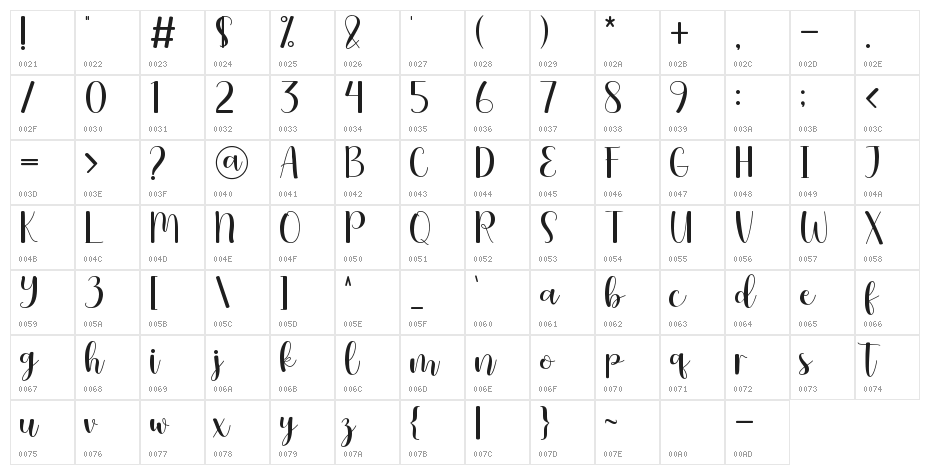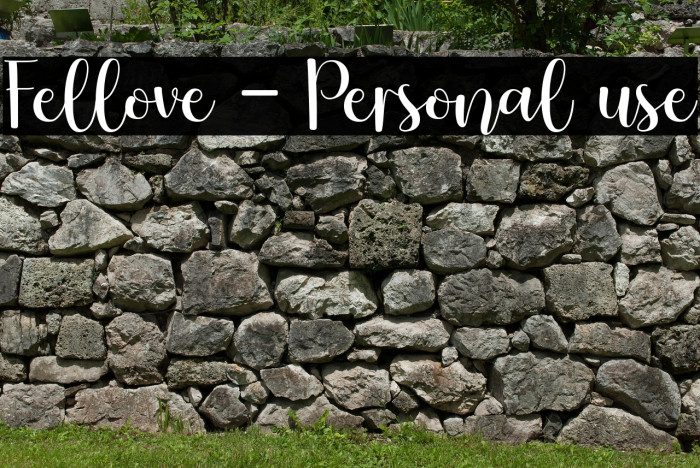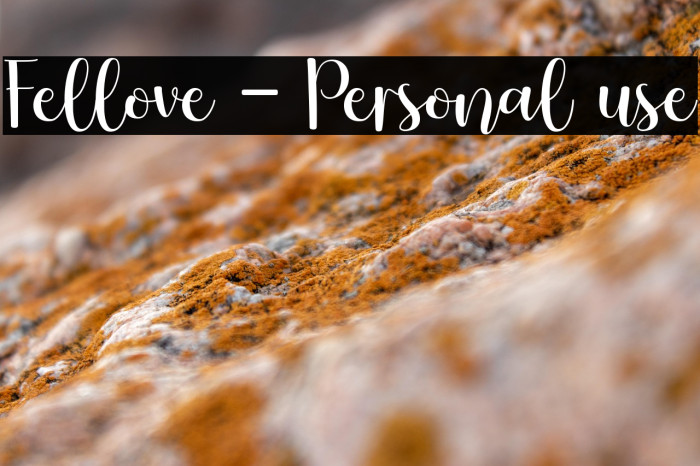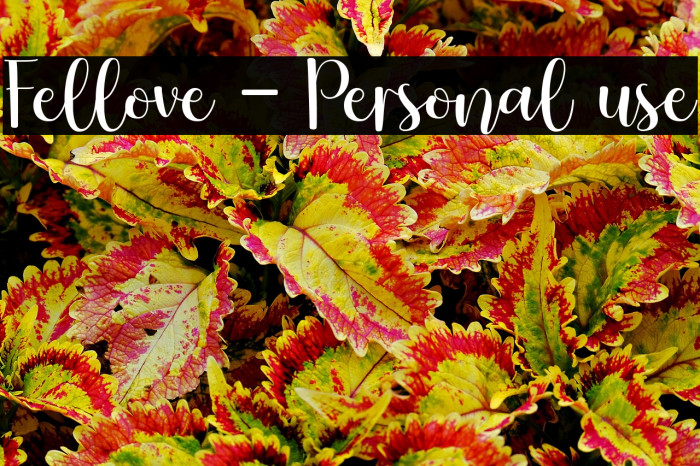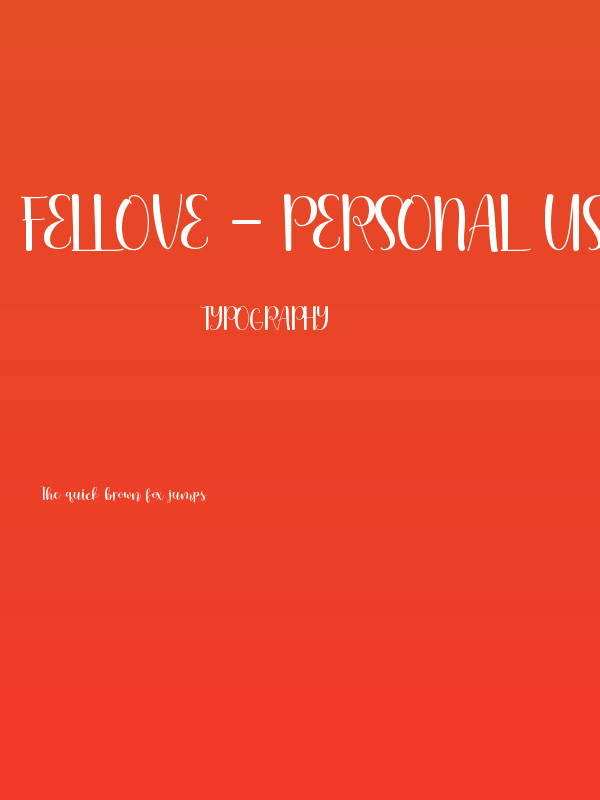
Fellove - Personal use Font
Fellove - Personal use Description
This font exudes a playful and elegant charm, characterized by its flowing, cursive script style. The uppercase letters are tall and slender, with a whimsical flair that adds a touch of sophistication. The lowercase letters maintain a consistent flow, enhancing readability while retaining an artistic quality. Numbers are bold and slightly rounded, complementing the overall aesthetic. Special characters are creatively designed, maintaining the font's unique style. This font is perfect for projects that require a personal, handwritten touch, such as invitations, greeting cards, and branding materials.
Use CaseLogos, Headlines, Invitations
Proposed ProjectsIdeal for invitations, greeting cards, branding, and personal projects.